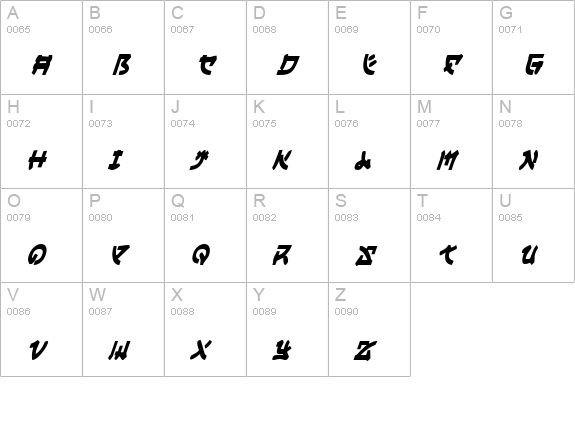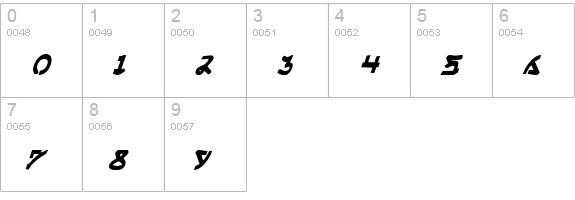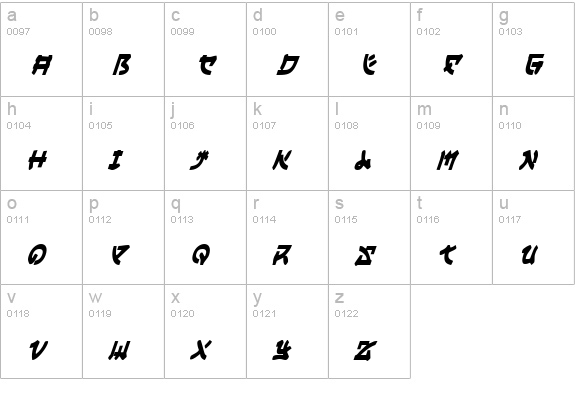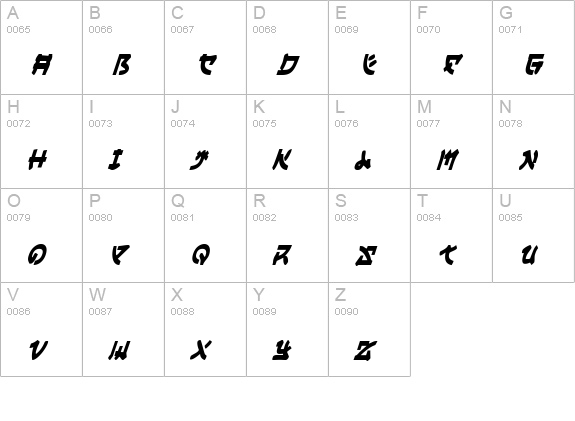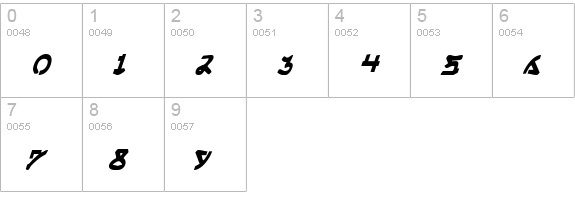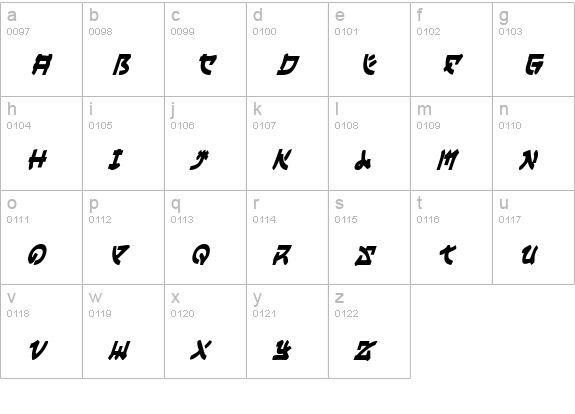
Yama Moto Condensed Italic is a distinctive, condensed-width, italic variant in the Yama typeface family \xE2\x80\x94 well suited to design and typography projects.
Yama Moto Condensed Italic font is a sleek and modern typeface that exudes sophistication and elegance. Its condensed form adds a touch of style and versatility to any design project, making it perfect for headlines, logos, and branding materials. The italic styling of the font gives it a dynamic and contemporary feel, perfect for adding a touch of flair to your designs. Best of all, Yama Moto Condensed Italic font is available for free download at FontsMarket.com. This means you can easily access this high-quality font and use it in your projects without any cost. Whether you're a designer looking to elevate your work or a business owner wanting to make a statement with your branding, Yama Moto Condensed Italic font is a fantastic choice that won't break the bank. Download it today and see the difference it can make in your designs!